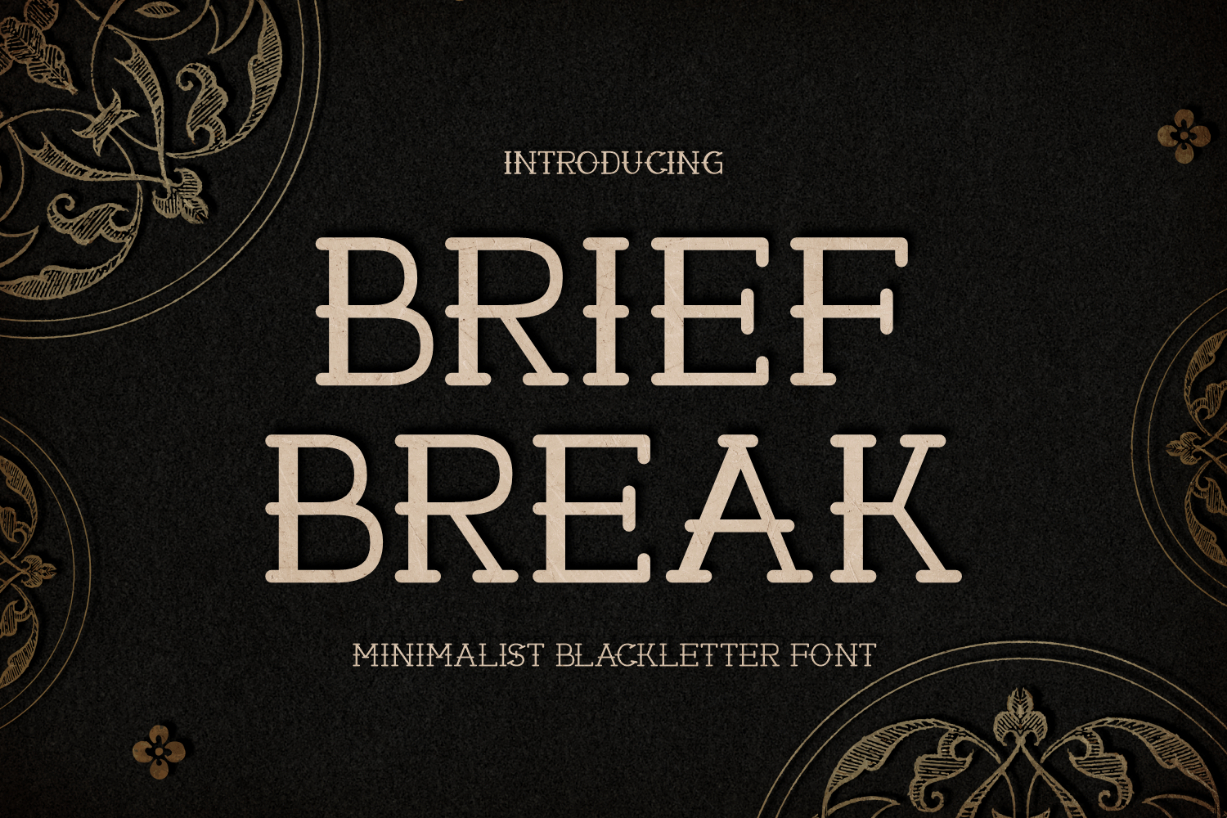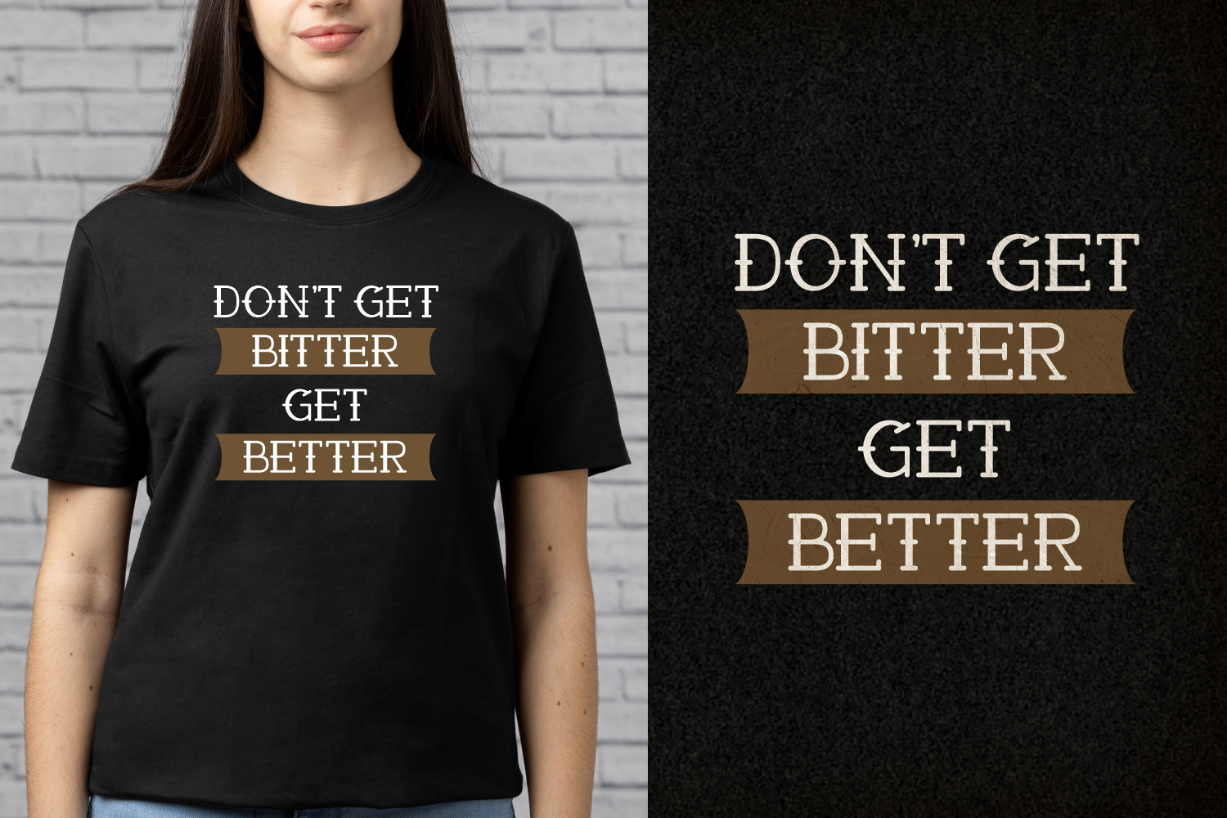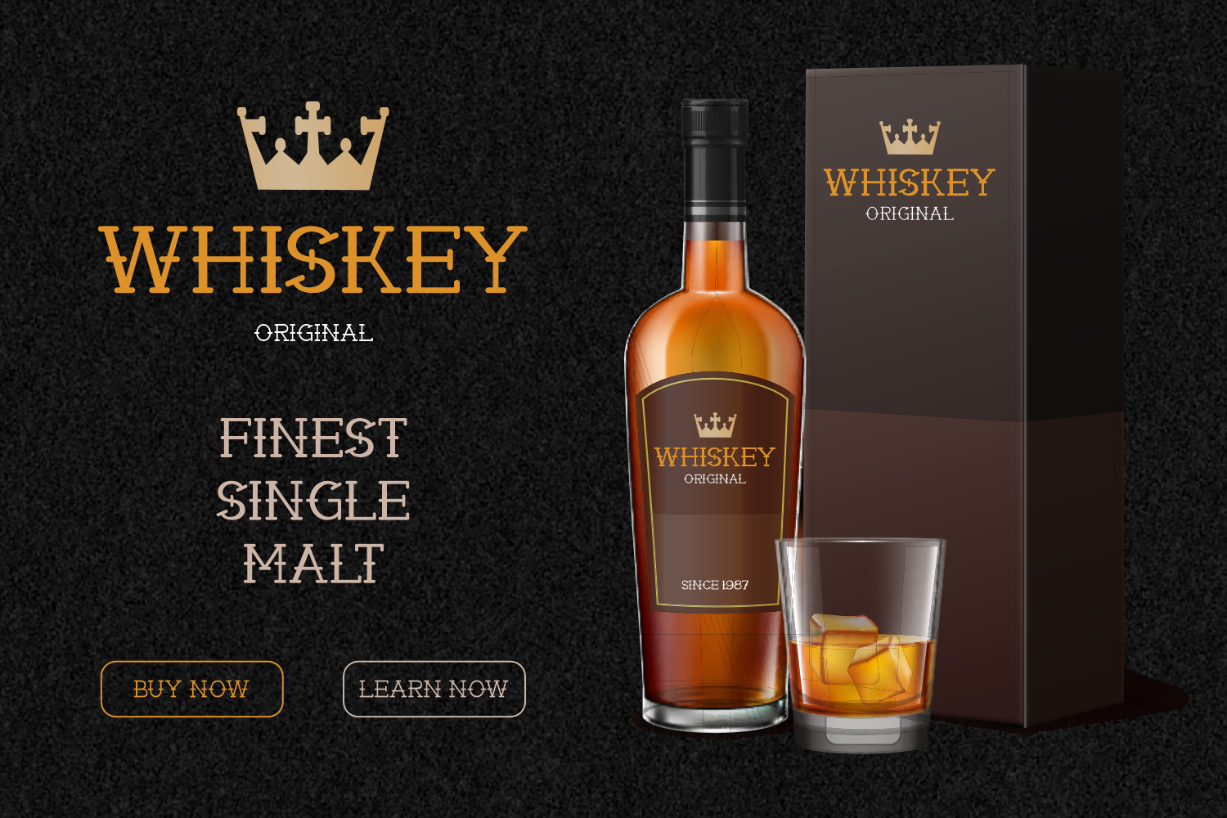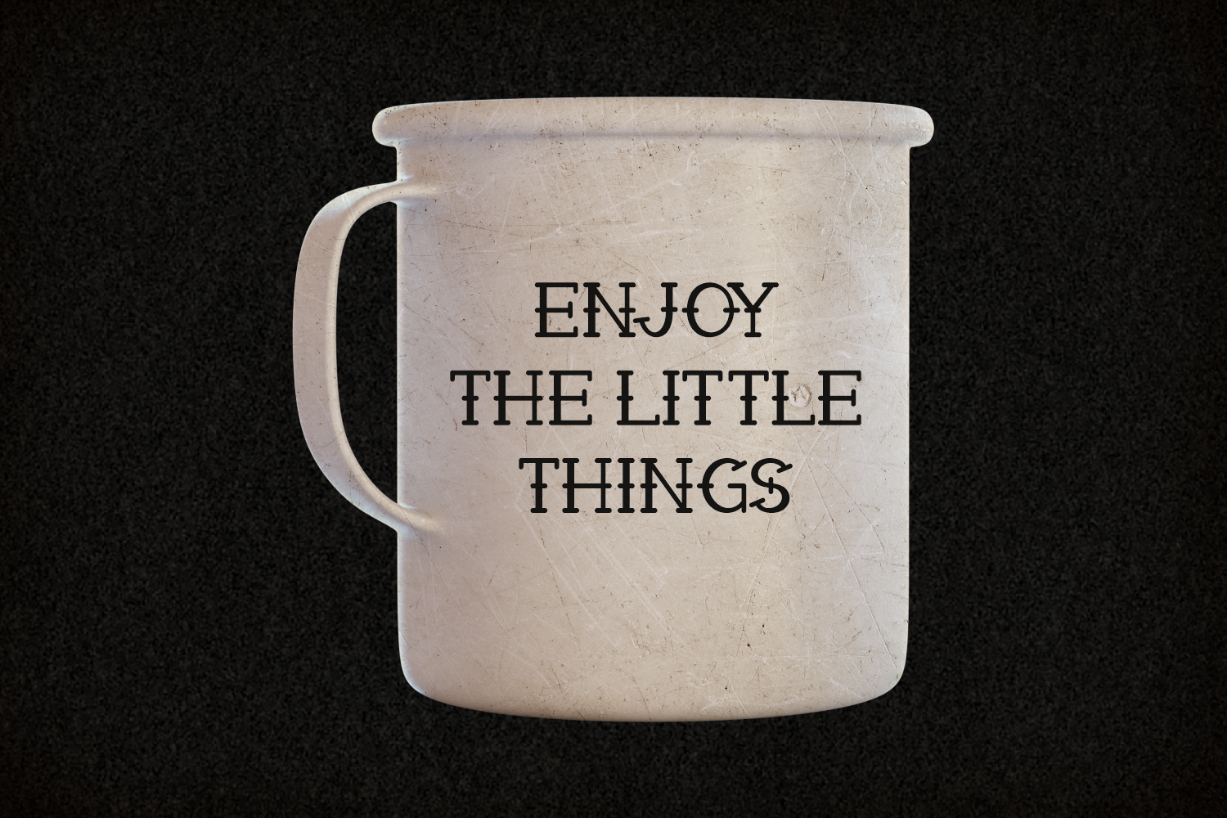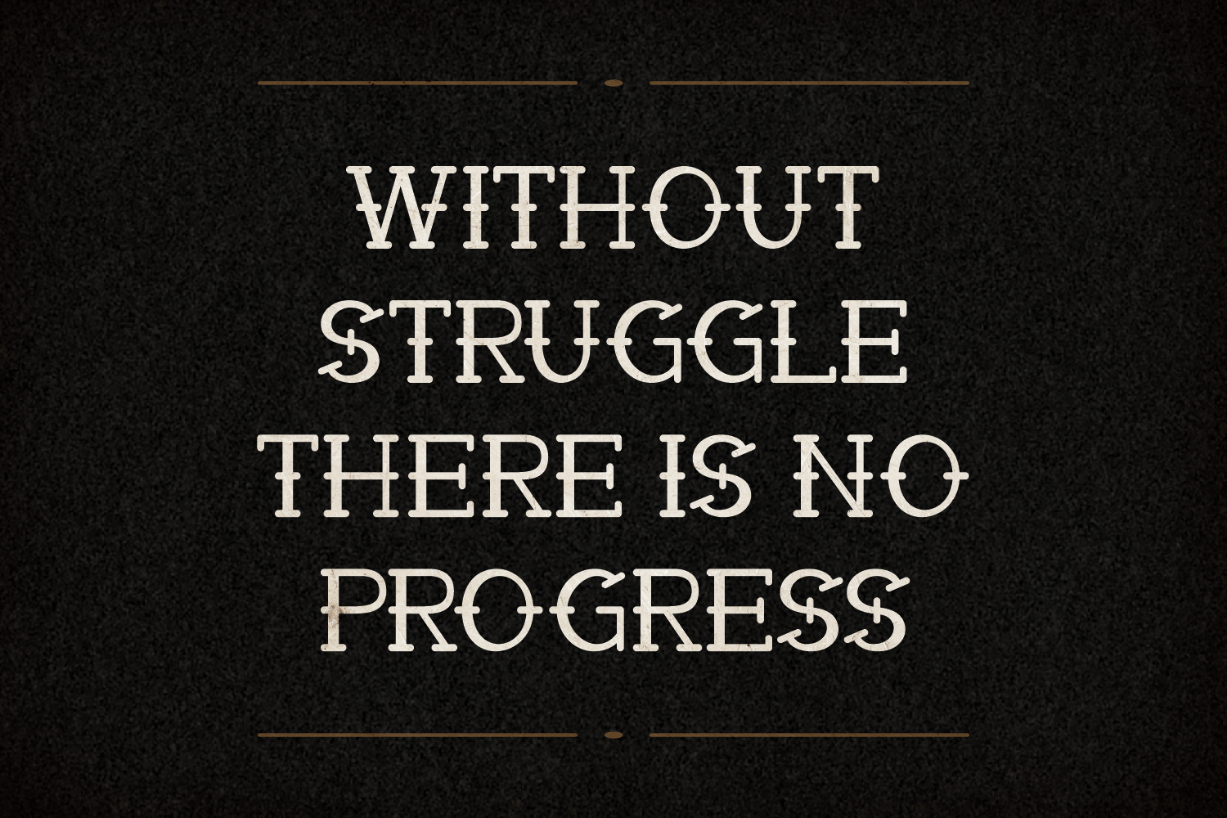
Brief Break Font
Brief Break is a minimalist blackletter font with serifs. Elegant and versatile, this lovely typeface is perfect for bringing your creative ideas to life! You can use it to create stylish logos, posters, product packaging, advertisements, t-shirts, websites, and more.